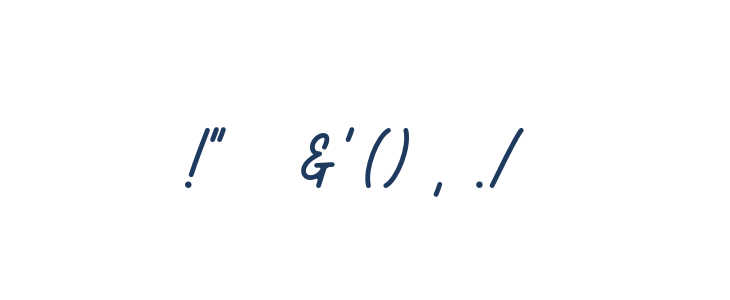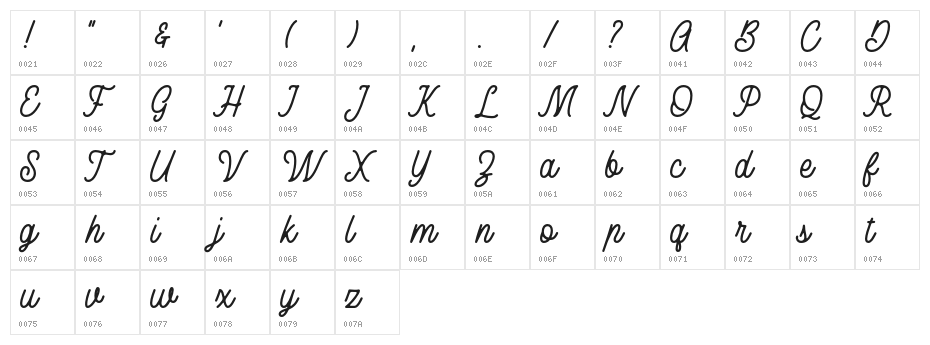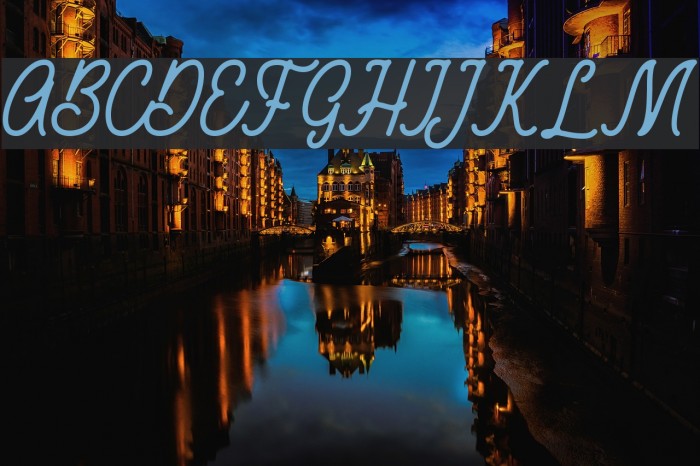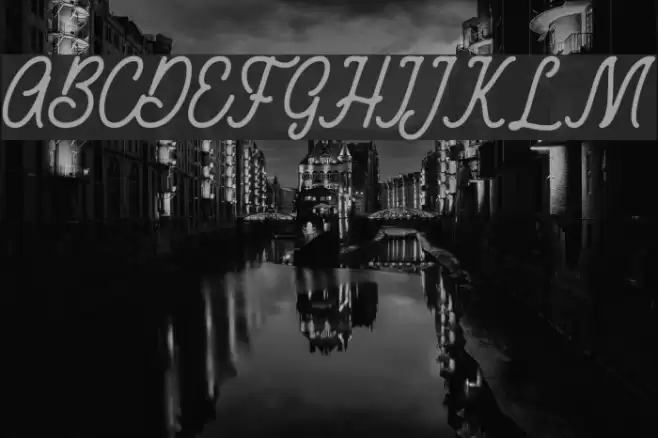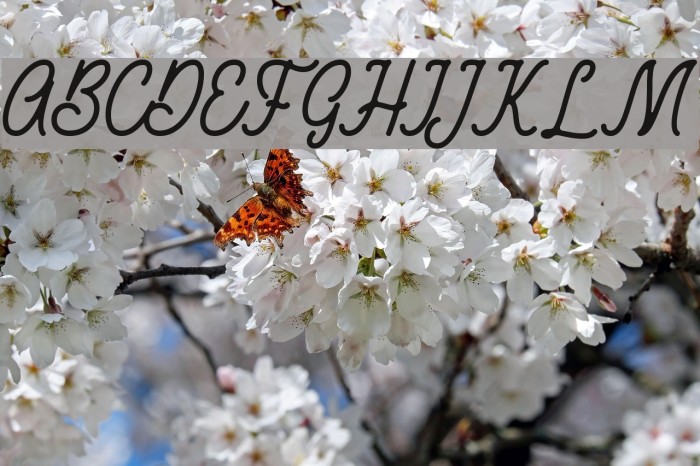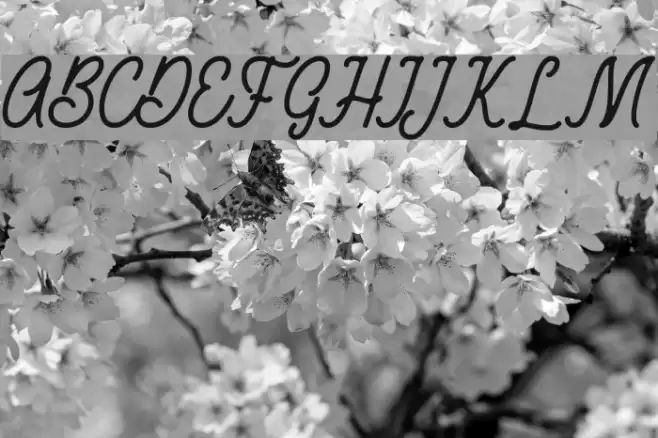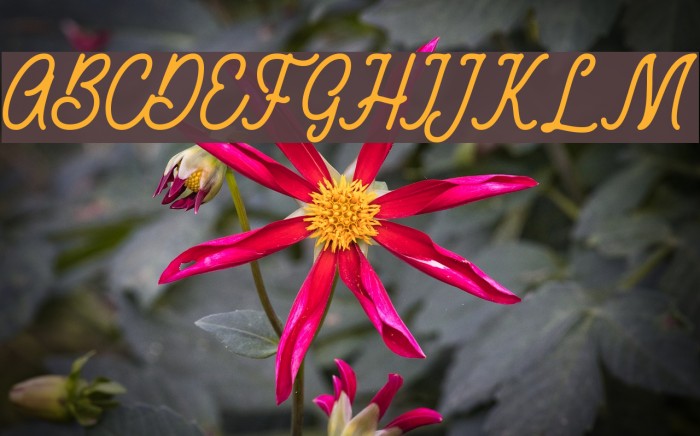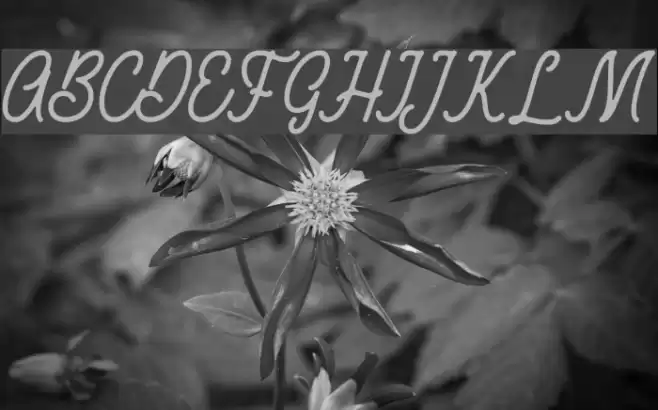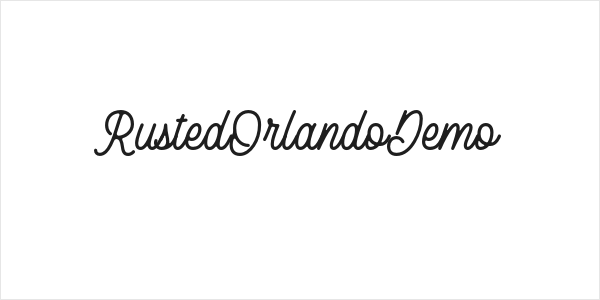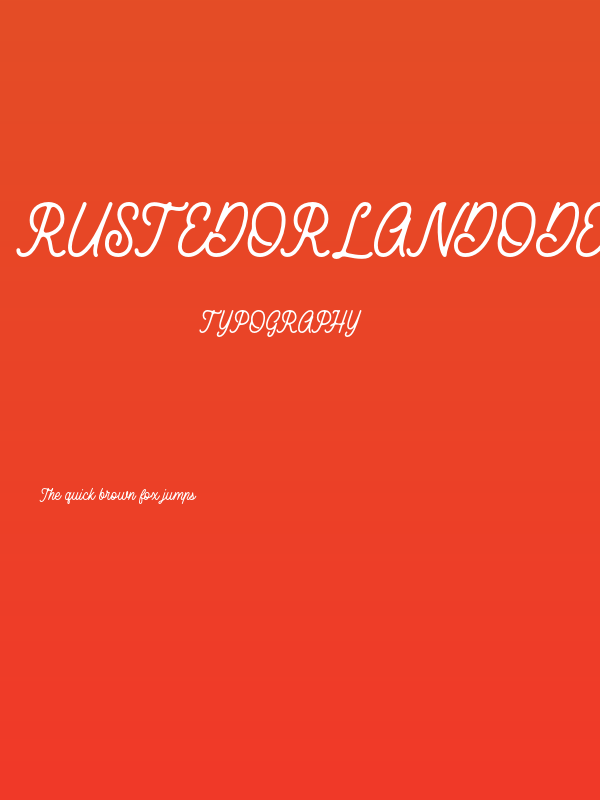
RustedOrlandoDemo Font
RustedOrlandoDemo Description
This font features a flowing, cursive style with elegant loops and smooth transitions between characters. The uppercase letters are slightly more ornate, with flourishes that add a touch of sophistication. The lowercase letters maintain a consistent, rounded appearance, making them easy to read while still retaining a sense of fluidity. The numbers and special characters are designed to match the overall aesthetic, with a balanced mix of curves and angles. This font is ideal for projects that require a personal, handwritten touch, such as invitations, greeting cards, or branding materials.
| Proposed Projects | Ideal for invitations, greeting cards, branding materials, and personal projects. |